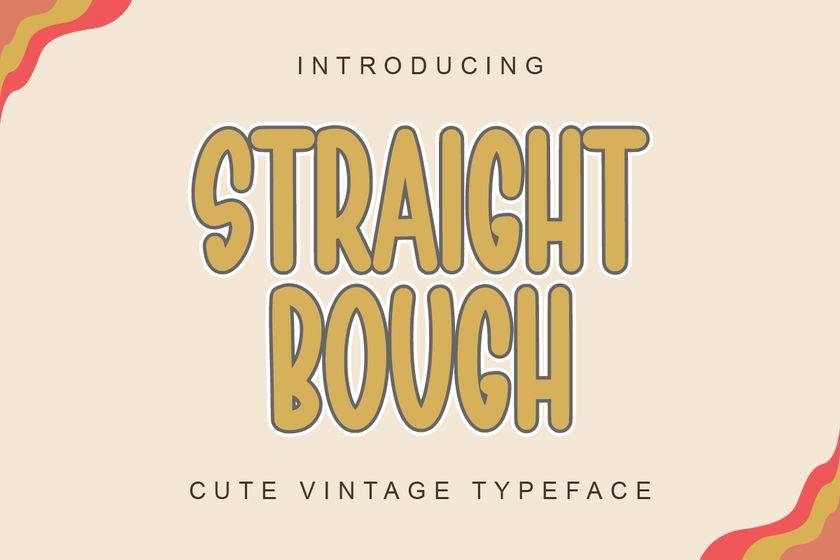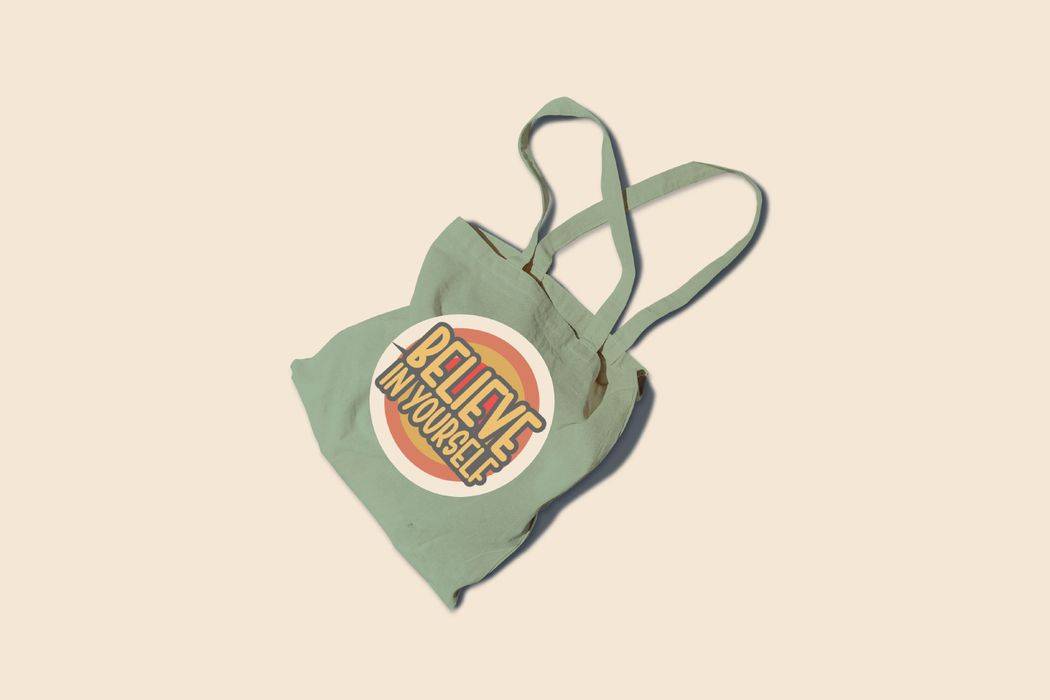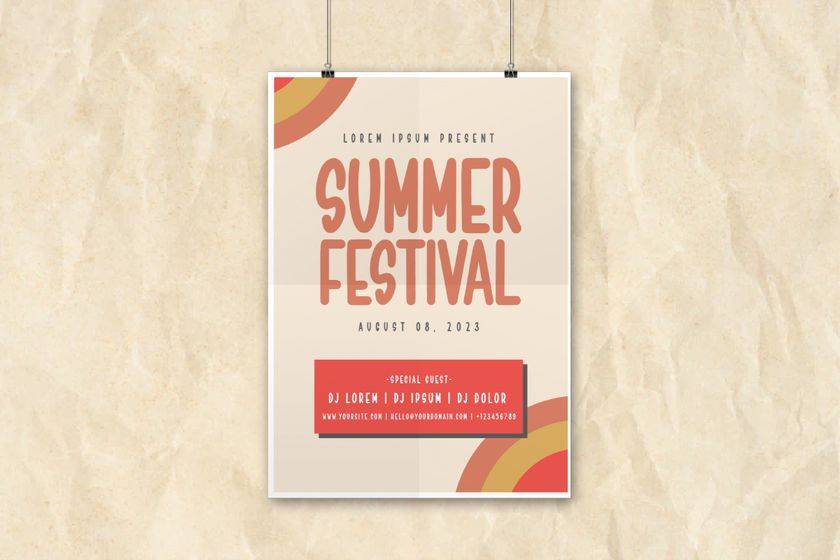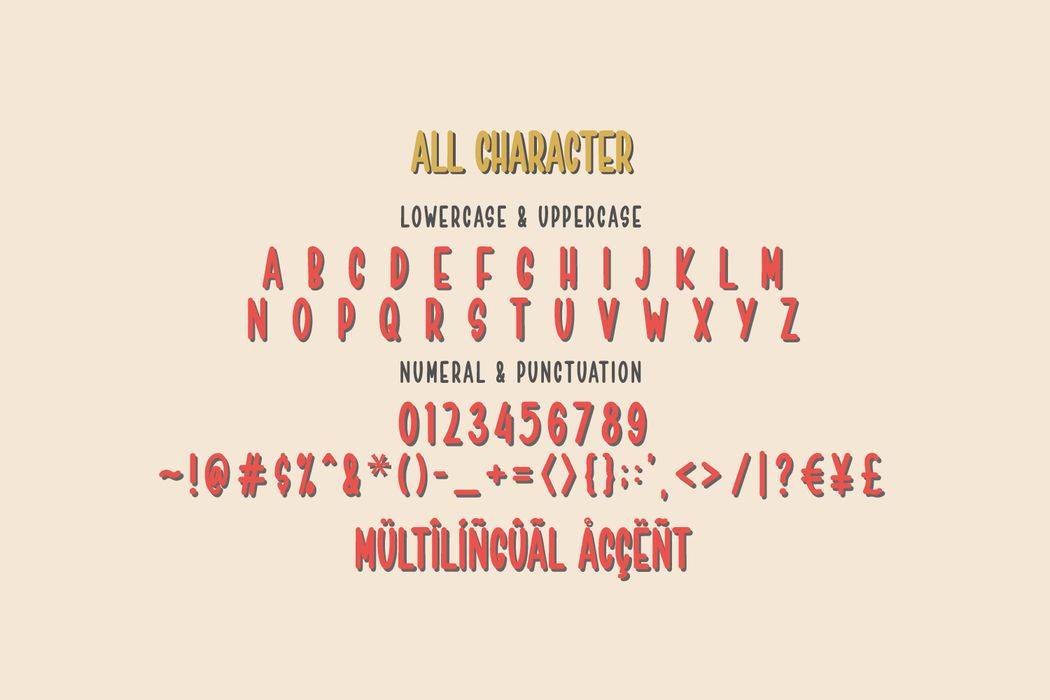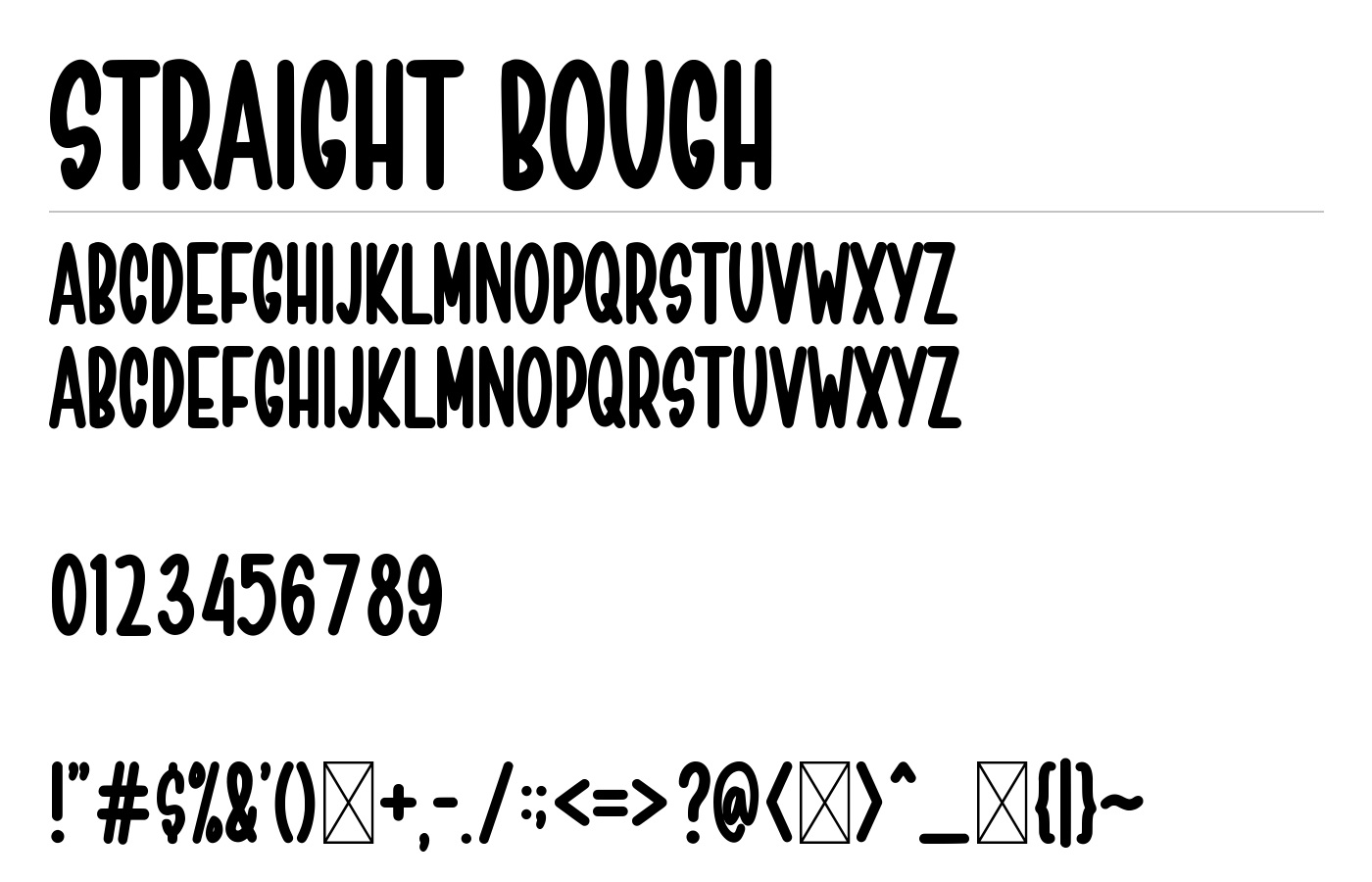
Straight Bough is a playful and informal sans serif font characterized by its tall, narrow letterforms and rounded edges. With its consistent stroke weight and slightly condensed style, it offers a friendly, approachable feel that works well for fun, casual branding, posters, and eye-catching headlines. This font’s unique personality makes it ideal for projects aiming to convey warmth and creativity without sacrificing readability.
Straight Bough Font
About Straight Bough Font
| Font family | Straight Bough Font |
| Designer | Letterayu Studio |